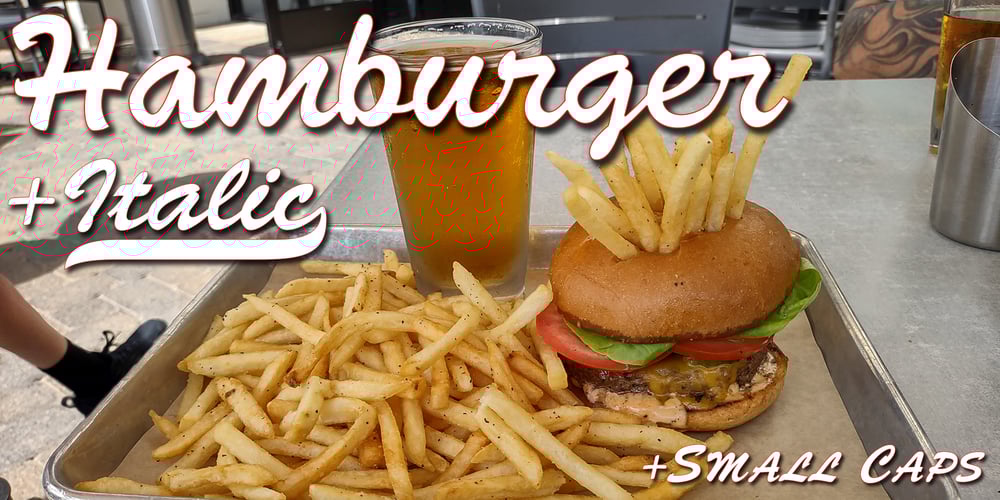
Hamburger Font Family was designed by Michael Hagemann and published by FontMesa. Hamburger contains 10 styles and family package options. Our new Hamburger font is based on the old classic Brush Script design with many new additions.We’ve added many alternates to the design including lowercase swash tail letters, swash underscores and a few alternate uppercase letters.Upright scripts are popular these day so new to this old type design is a near upright script version, a lot of hand work went into producing it.One of the biggest problems with the old Brush Script font is that people use it as all caps, which doesn’t look good because of the extended swash on the top left side of the caps letters.We’ve fixed that problem by making an all caps version where the caps in the lowercase position have the top left swash tucked in to help the letters display better as an all caps font.We’ve also created a small caps version, again the small caps lowercase have all the top left swashes tucked in to bring the letters closer together for a better display.Also new to this font are two higher x-height versions that are ideal for signage.The first is Hamburger X which stands for extra x-height and the second is Hamburger SPX which stands for super x-height.Both of these higher x-height fonts are suitable for signage on a building, billboard and vehicle lettering where you’re looking for faster readability from moving traffic.We’ve designed a new lowercase b and moved the original to an alternate position.We’ve also redesigned the uppercase C bringing the bottom up to the baseline and moved the original C to an alternate position.The original lowercase g was open at the top, we’ve closed it and we’re not offering the original g as an alternate.